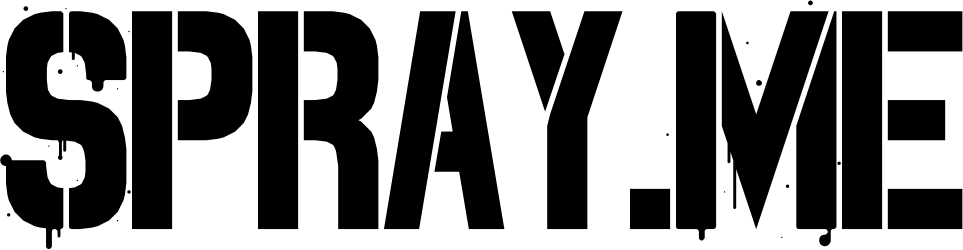
Spray Me Font
Quite disciplined while carrying dripping vibes arrives to catch any audience’s sights in designing any military displays, posters, clothing, movie titles, flyers, and others.
Integration of missing lines in some parts of letterforms with strong, and bold design makes this stencil font more specific than others. Although this Spray Me font doesn’t support lowercase letters, be sure that it can sustain or even improve the quality and value in many writing cases.